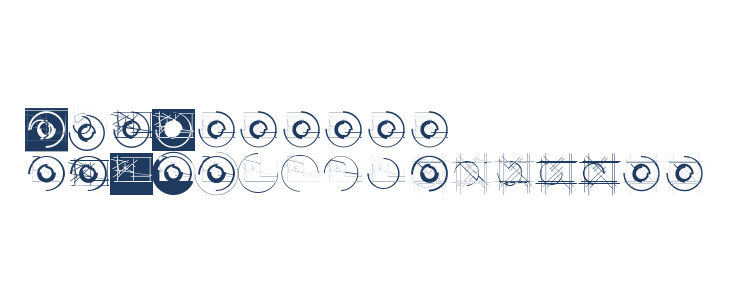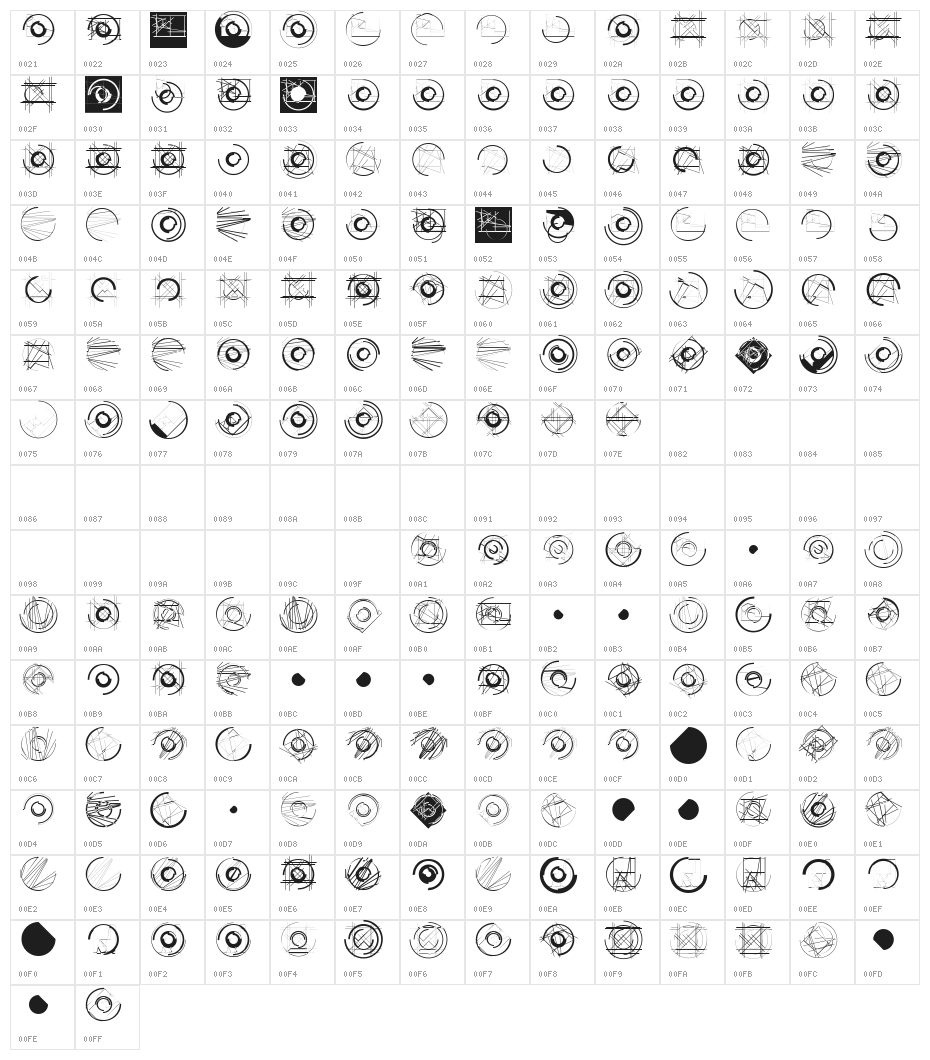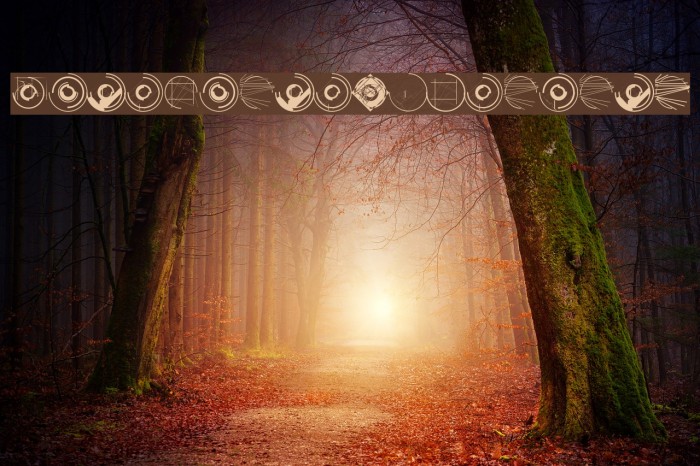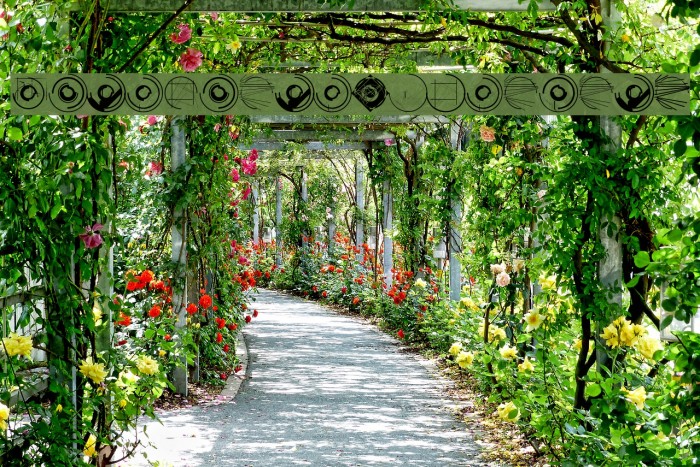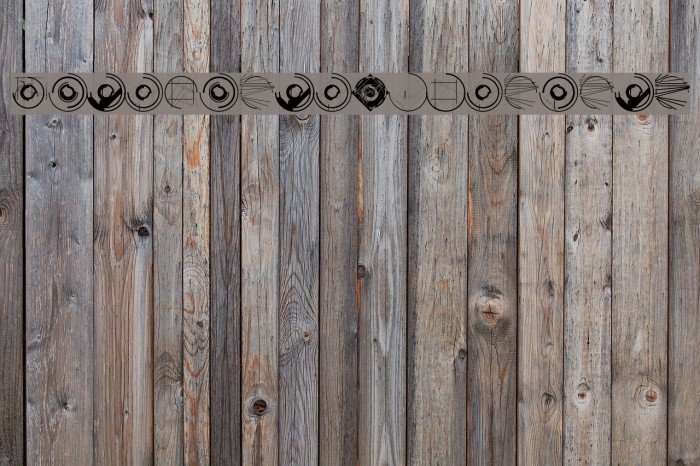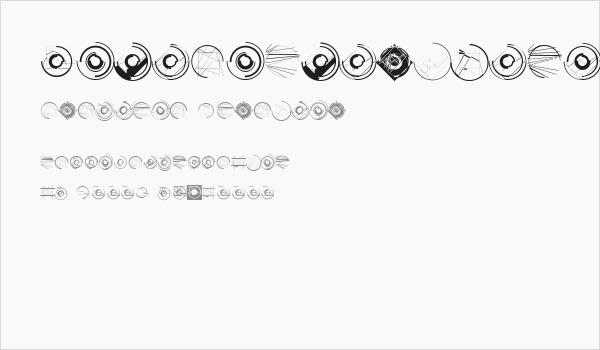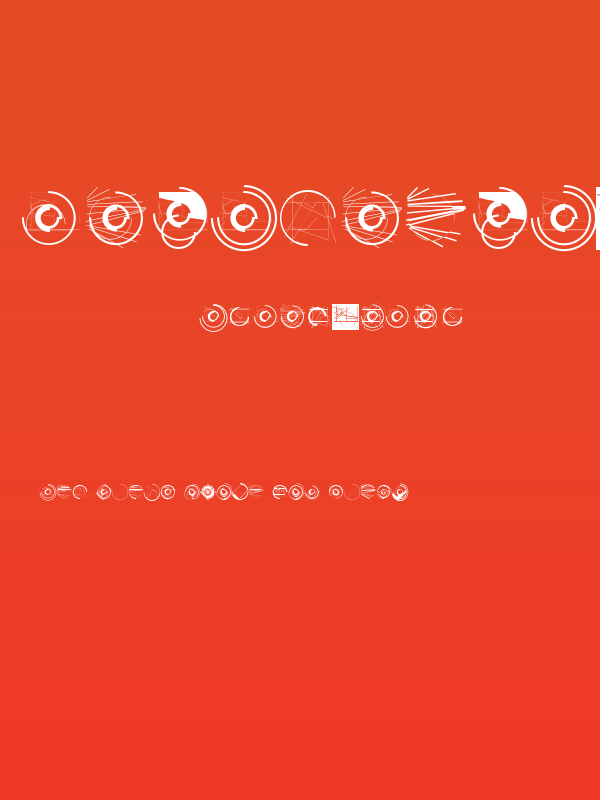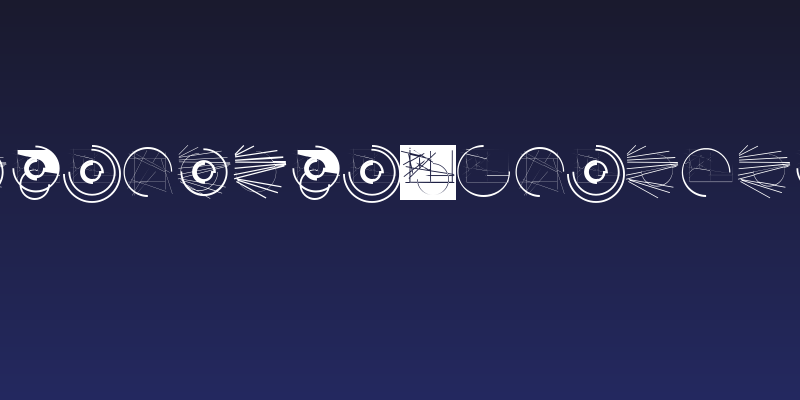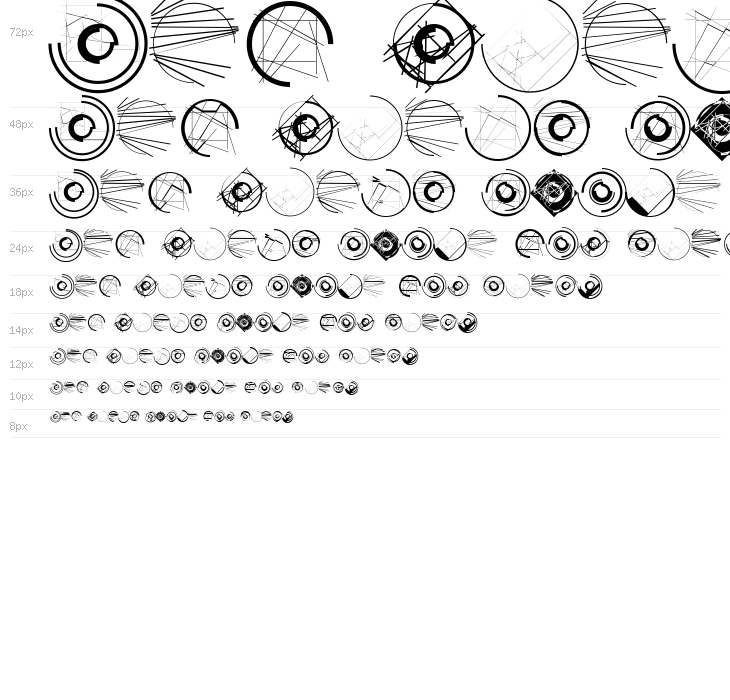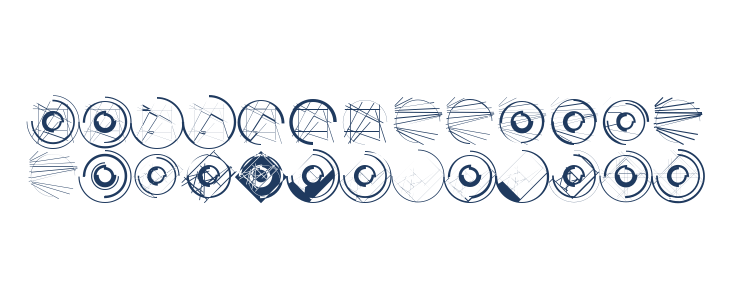
PostConstructivism Font
PostConstructivism Description
This font is a highly abstract and artistic representation, characterized by its intricate geometric patterns and overlapping lines. Each character is a complex composition of circles, lines, and shapes, creating a sense of movement and depth. The design is reminiscent of constructivist art, with a focus on form and structure rather than readability. The characters are not easily distinguishable, making this font more suitable for artistic or decorative purposes rather than practical text applications. The overall aesthetic is bold and experimental, pushing the boundaries of traditional typography.
| Overall Style | Modern, Experimental |
| Use Case | Art installations, Decorative elements |
| Proposed Projects | Ideal for avant-garde art projects, experimental design work, or as a decorative element in modern art installations. |